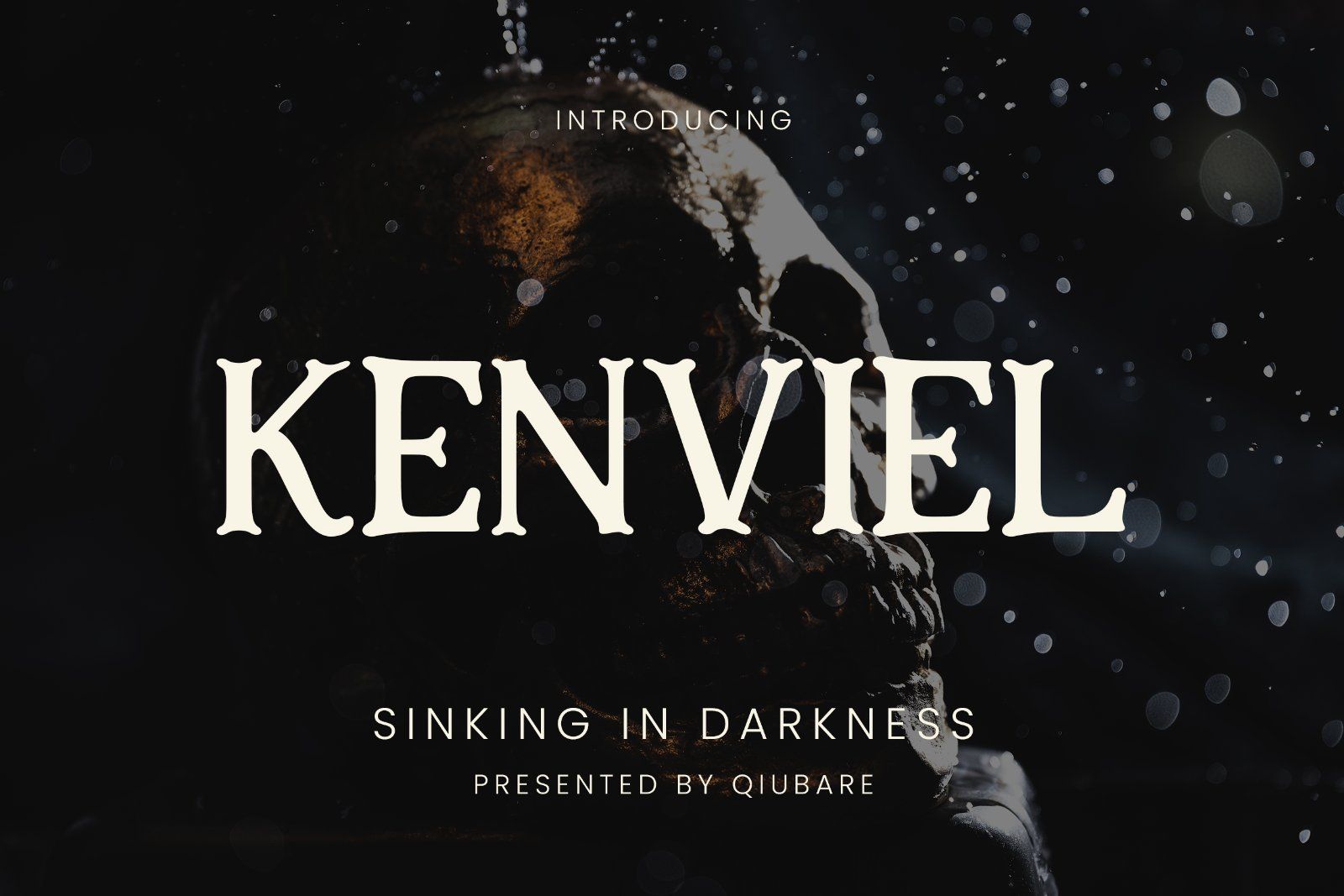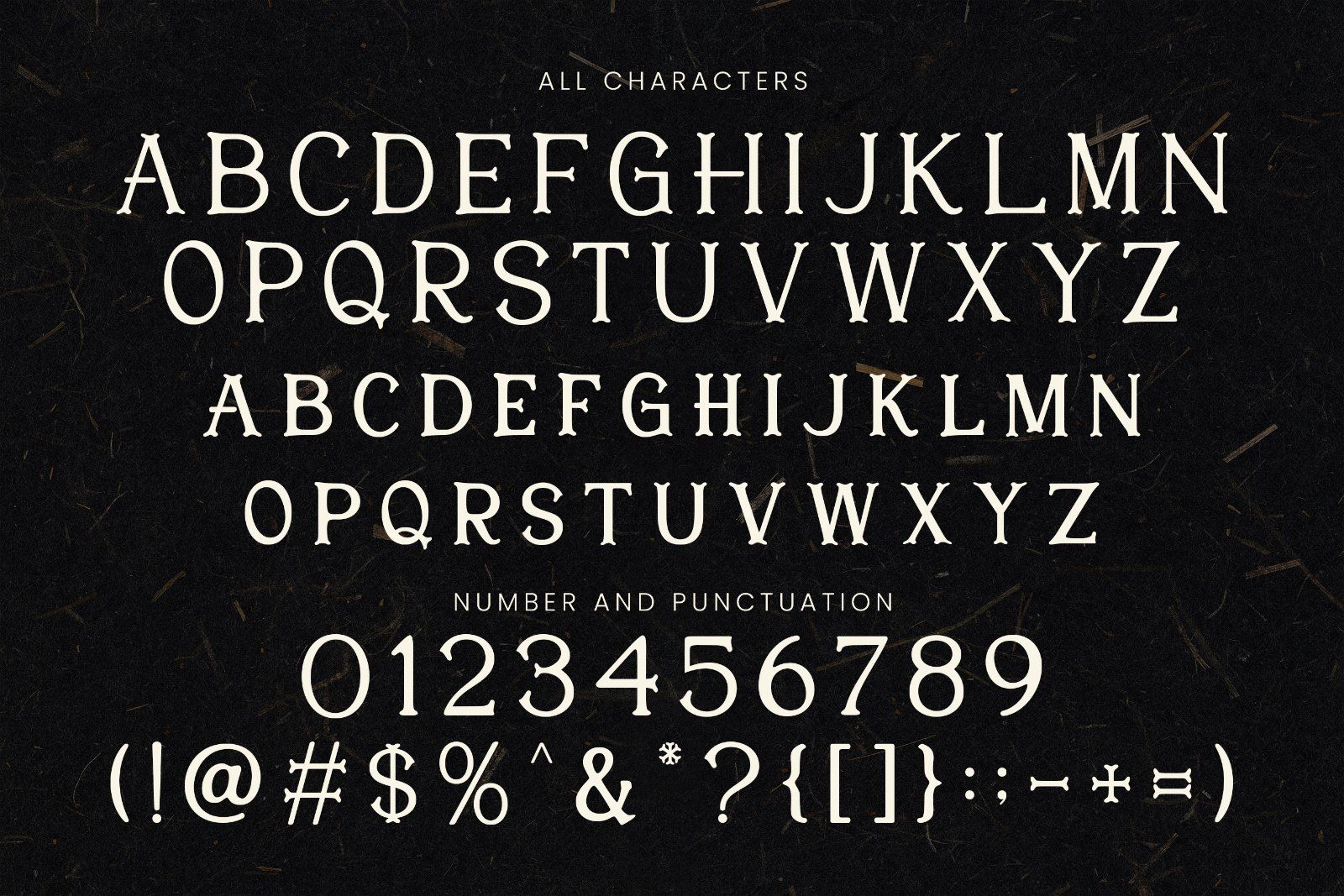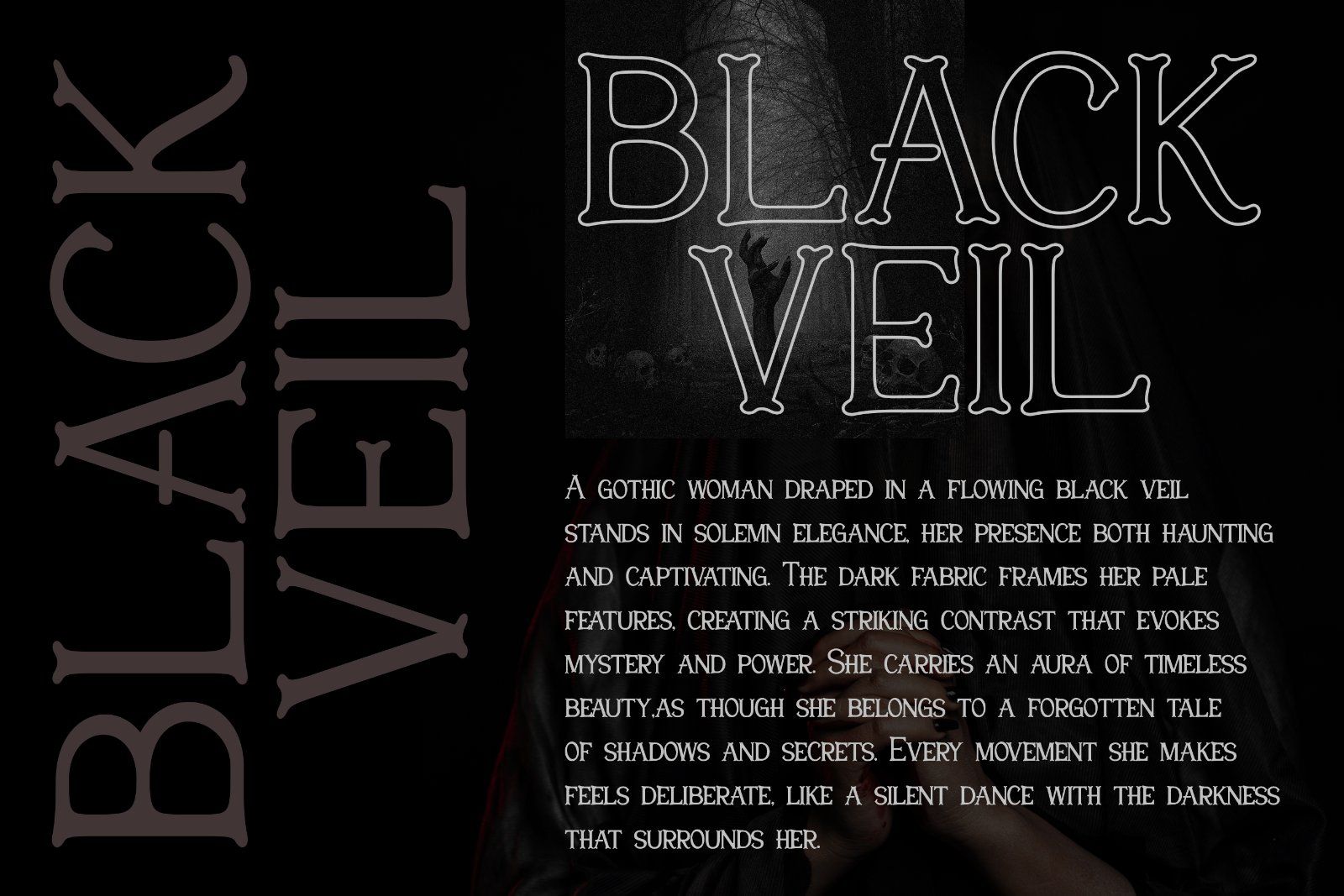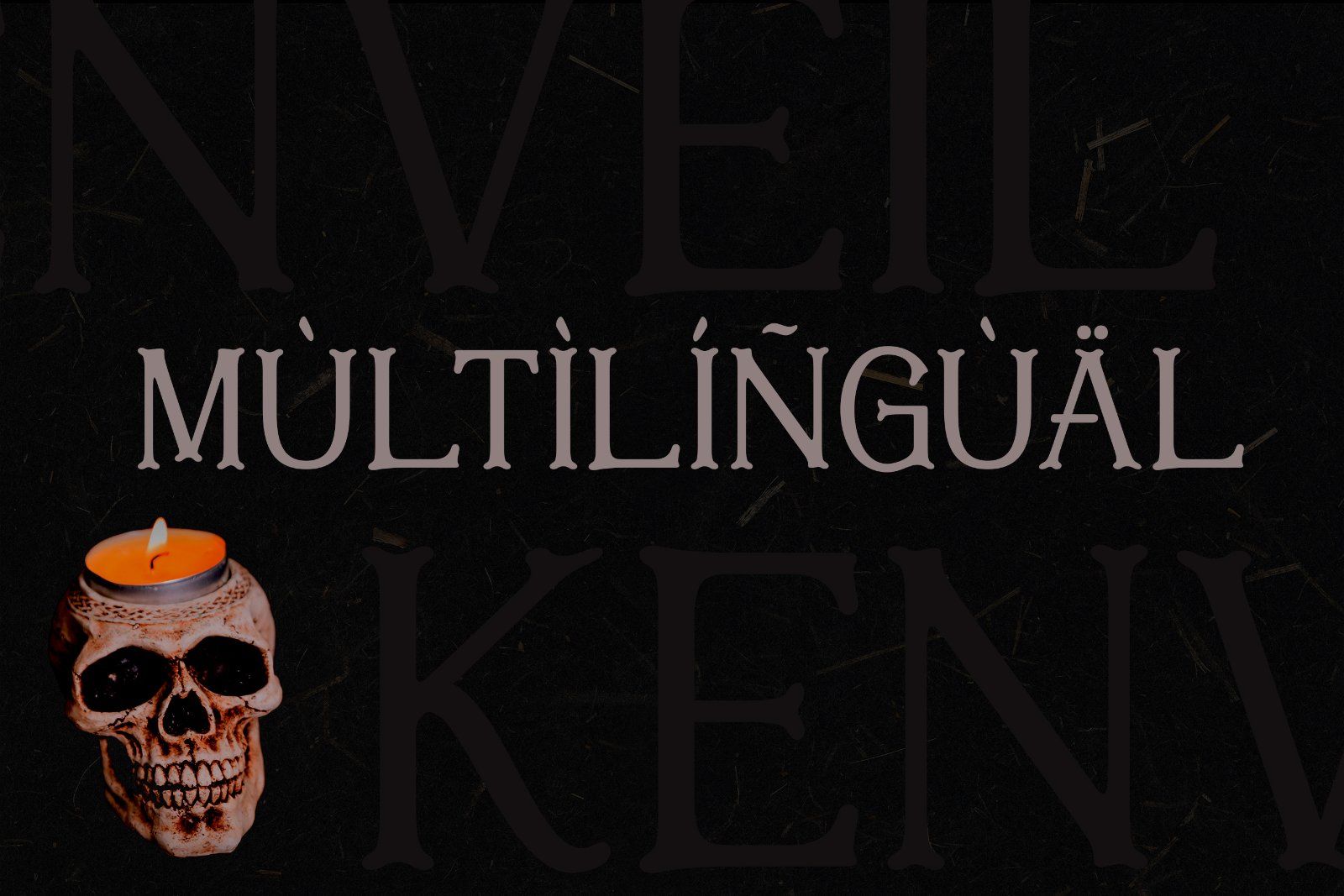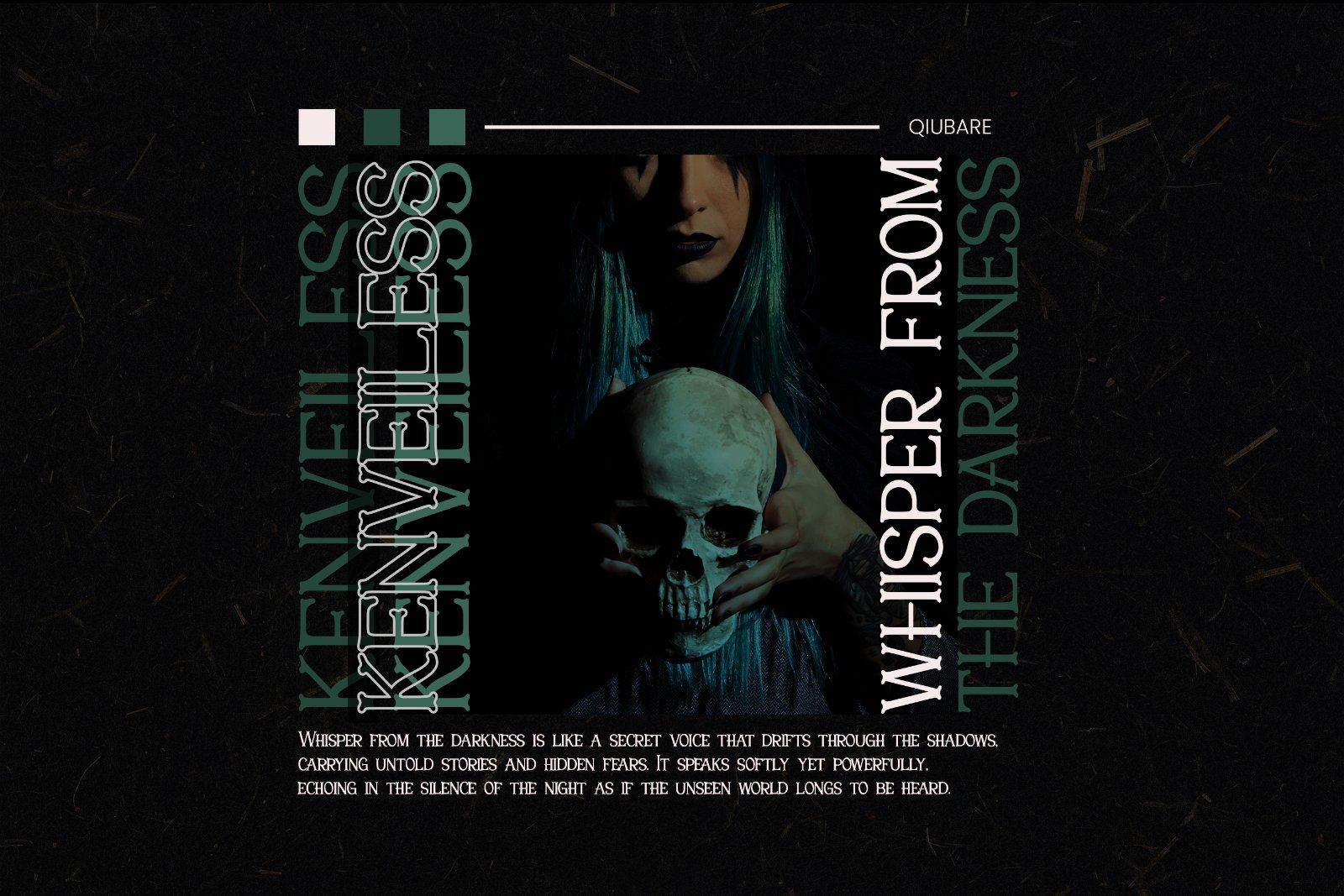
Kenviel is a dramatic gothic serif typeface inspired by shadows, mystery, and timeless elegance. Designed with sharp serifs and subtle ornamental curves, this font evokes a sense of dark romance and haunting beauty.
Its distinctive letterforms blend classic medieval influence with modern refinement, making it perfect for designs that demand atmosphere and character.
Kenviel works beautifully for:
• Gothic and horror-themed designs
• Book covers and fantasy titles
• Halloween projects
• Branding with a dark luxury touch
• Posters, movie titles, and dramatic headlines
• Tarot, mystical, and occult artwork
With multilingual support, numbers, and punctuation included, Kenviel is ready to bring depth and intensity to your creative projects.
Let your typography whisper from the darkness.